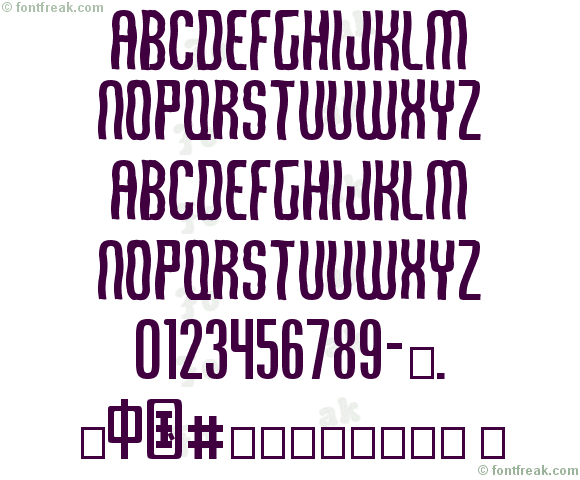
Qirof
About Qirof
The Qirof font by Rafi is a distinctive display typeface that captures attention with its unique visual identity. As a decorative font, Qirof combines playful elements with a modern aesthetic, making it perfect for creative projects. Its bold stroke weight and strong contrast give it a striking presence, while the carefully crafted spacing ensures readability, even at larger sizes. The letters feature rounded edges and subtle curves that add a touch of friendliness and approachability, making it suitable for a variety of applications.
Qirof excels in environments where impact is essential. It’s an excellent choice for wedding invitations, where its charming characteristics can convey warmth and celebration. The font also works well on movie posters, where its boldness can draw in viewers and create excitement. For restaurant menus, Qirof adds a unique flair that can elevate the dining experience, enticing patrons with its inviting design. Additionally, small business owners can utilize this font in branding materials, helping to establish a memorable identity that stands out in competitive markets.
The target audience for Qirof includes graphic designers, content creators, and entrepreneurs looking to enhance their visual communication. Its versatility allows for usage in both print and digital formats, making it a valuable addition to any designer's toolkit.
What sets the Qirof font apart is its ability to blend playfulness with sophistication, making it suitable for both informal and formal contexts. Easily accessible as a freeware option, the Qirof font free download opens up creative possibilities for anyone seeking to make a statement. With its unique style and broad applicability, Qirof is a font that truly stands out in the crowded world of typography.